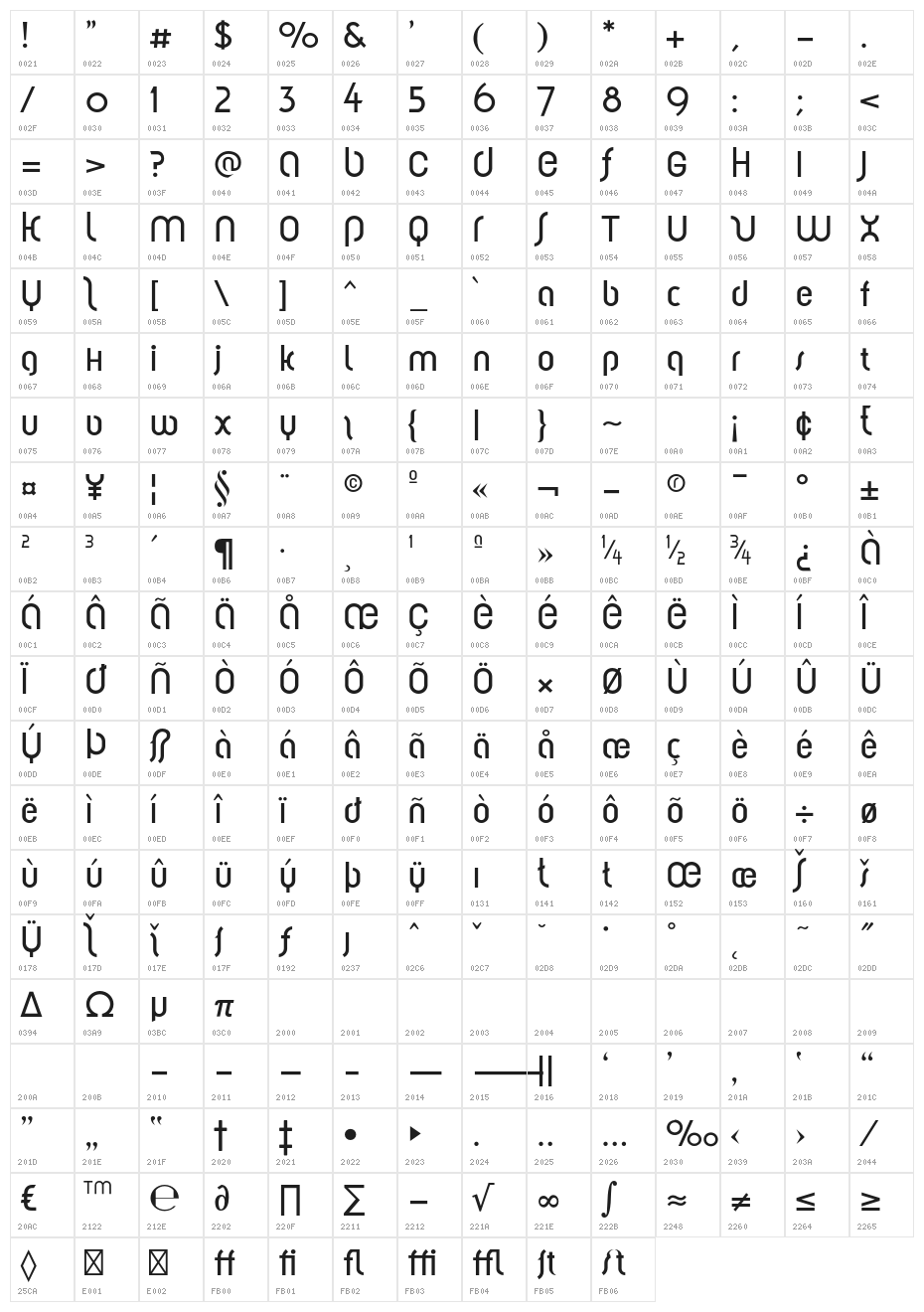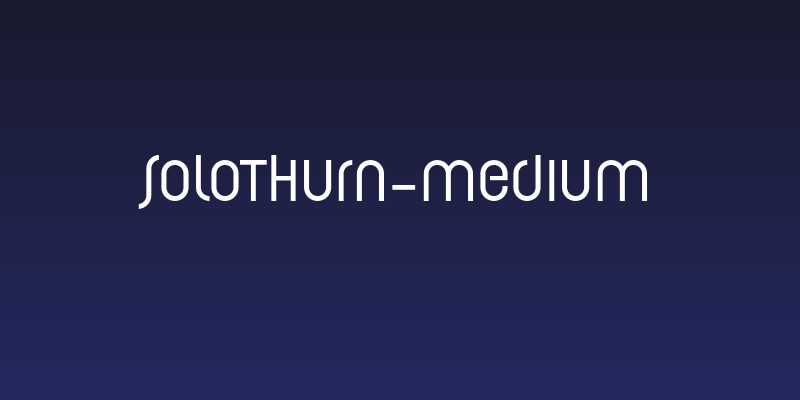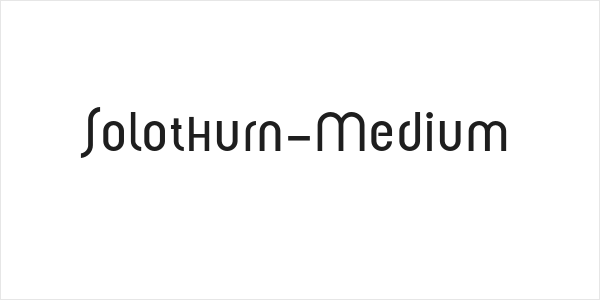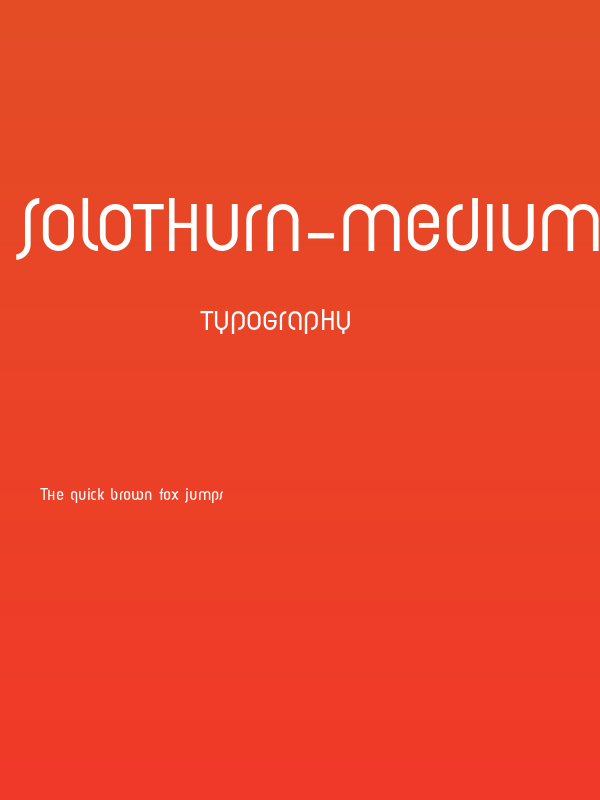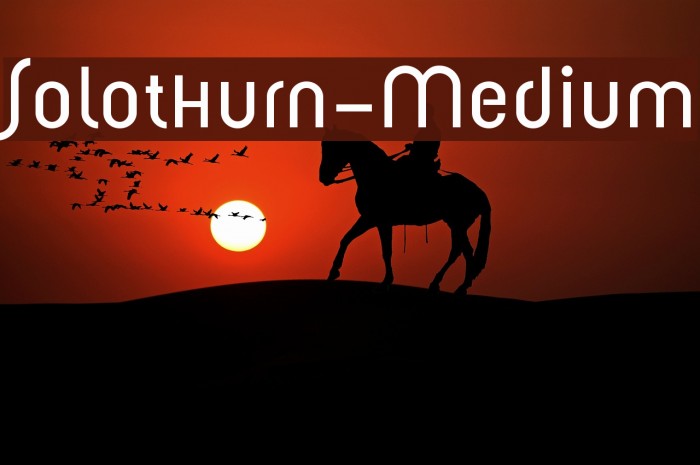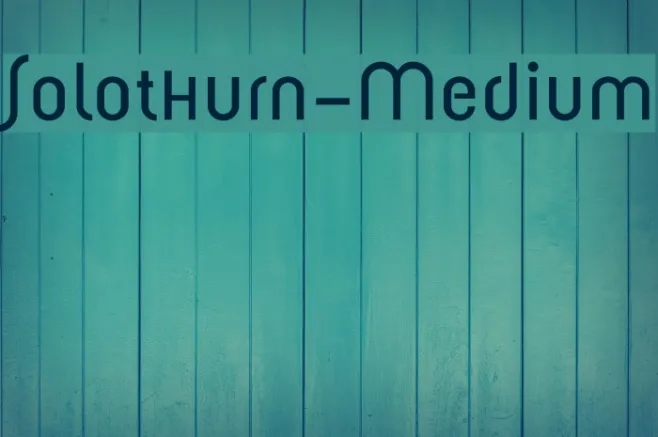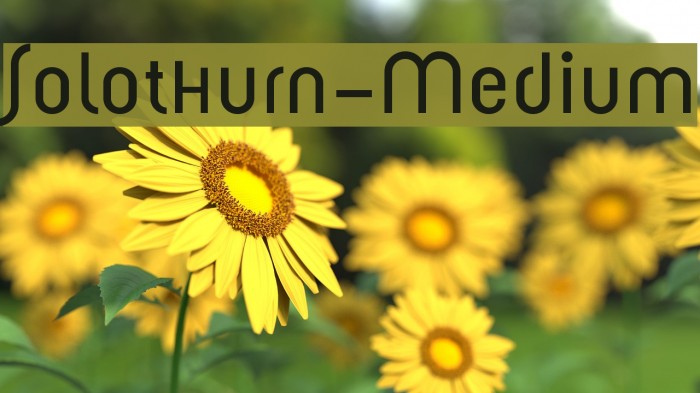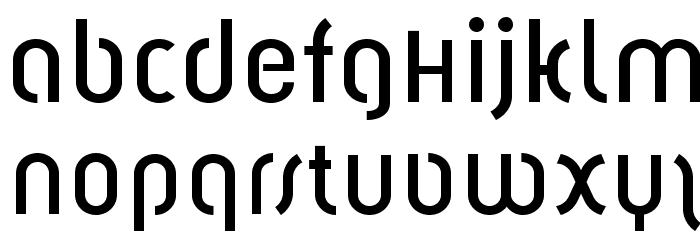
Solothurn-Medium Font
Solothurn-Medium Description
This font features a modern and geometric design with a clean and structured appearance. The characters are crafted with uniform stroke widths, giving it a balanced and harmonious look. The rounded edges and smooth curves contribute to its contemporary style, making it suitable for a variety of design applications. The numerals are distinct and easy to read, while the special characters maintain the same geometric consistency. This font is versatile, offering a sleek and professional aesthetic that can enhance both digital and print media.
| Proposed Projects | Ideal for branding, advertising, web design, and editorial layouts. |